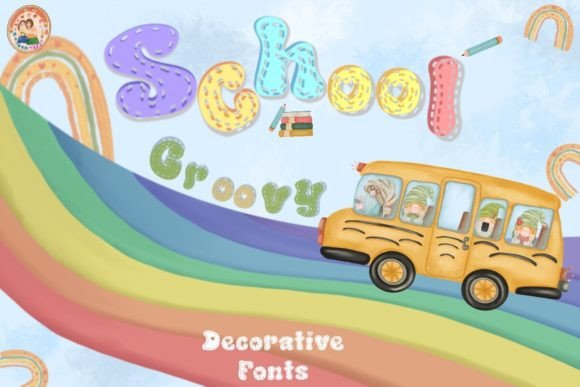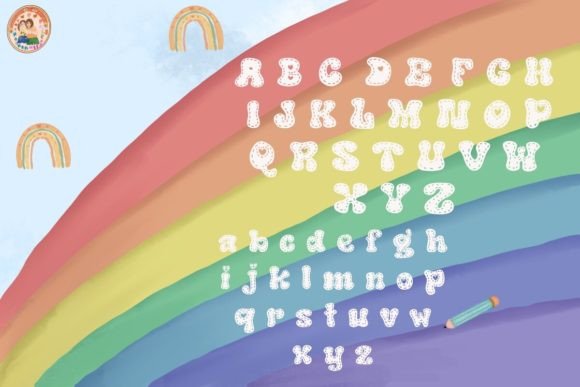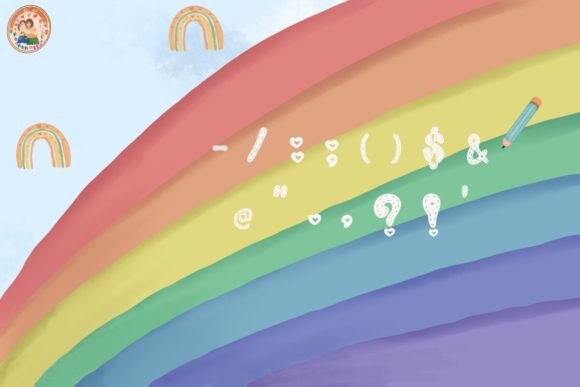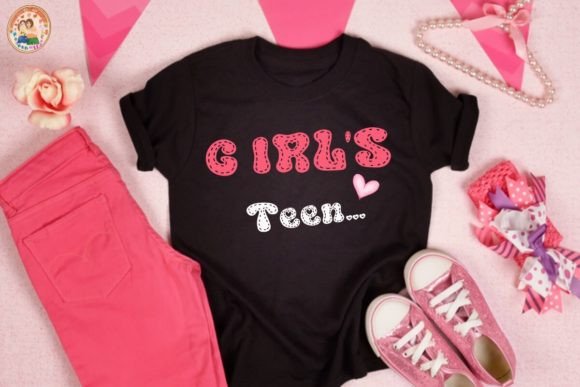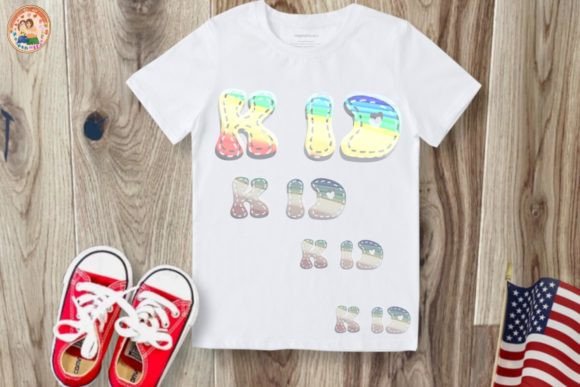
Introduction to School Groovy Font
Remember the thrill of creating a handmade card for your best friend’s birthday? The hours spent selecting the perfect font, the colorful markers, and the excitement of seeing your creation come to life? The School Groovy Font brings back that same sense of joy and creativity, making it an ideal addition to any project.
As a designer, you’re always on the lookout for that special something to make your project stand out. The School Groovy Font is a high-quality, free download that’s perfect for crafting, presentations, and even restaurant menus. Its transparent background makes it easy to layer and customize, giving you endless possibilities for your creative project.
Key Features of School Groovy Font
- Unique, Hand-Drawn Design: School Groovy Font features a fun, playful style that’s perfect for creative projects and educational materials.
- Perfect for Educational Materials: School Groovy Font is specifically designed for use in educational settings, making it an excellent choice for teachers, students, and designers creating educational materials.
Honest Review: School Groovy Font
I recently had the chance to use the School Groovy Font in a creative project, and I must say I’m impressed. This font is a great addition to any design resource collection.
- What works well: ✨ The font has a fun and playful vibe that’s perfect for designs targeting a younger audience. It’s also available for free download, which is a huge plus for designers on a budget.
- What works well: ✨ The font’s transparent background makes it easy to use in a variety of design contexts, from graphics to web design.
However, there are a few limitations to consider. ⚠️ The font may not be suitable for designs that require a more formal or professional tone. Additionally, the font’s unique style may not appeal to all designers.
Overall, I’m pleased with my experience using the School Groovy Font. It’s a high-quality design resource that’s perfect for creative projects that need a playful touch.
While it’s not a one-size-fits-all solution, the School Groovy Font is definitely worth checking out. With its free download and transparent background, it’s a great addition to any design collection.
School Groovy Font is perfect for a variety of creative projects, including educational materials, social media graphics, and marketing materials. Its high quality design makes it an ideal choice for any project where you want to add a touch of professionalism.